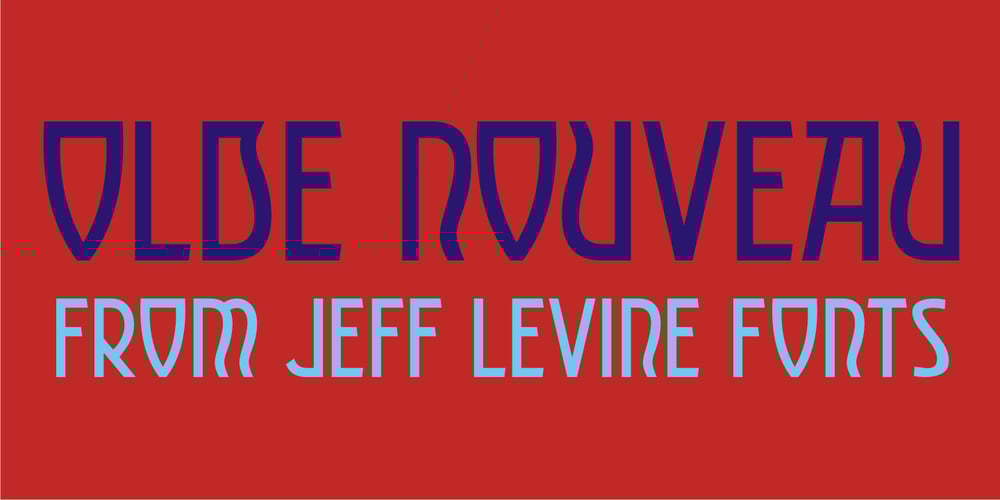
Olde Nouveau JNL Font Family was designed by Jeff Levine and published by Jeff Levine. Olde Nouveau JNL contains 1 styles and family package options. Olde Nouveau JNL is an interesting Art Nouveau typeface based on lettering found on some vintage sheet music. It’s name is a contradictory pun, since “Nouveau” means new in French, and Olde (spelled in the archaic form) is the total opposite of what the Art Nouveau movement embodied.